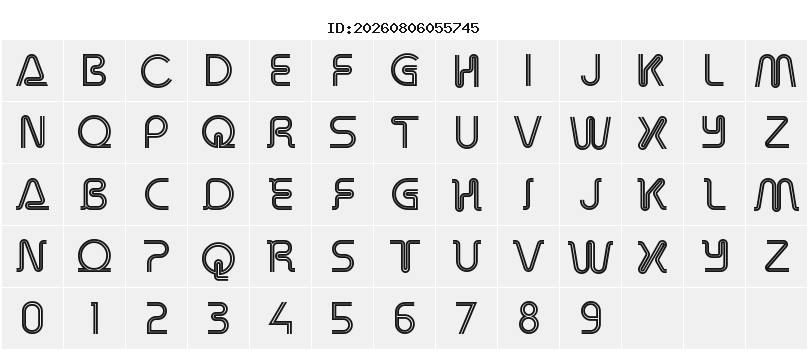
• Font Name: Overdrive Alternate
• Full Font Name: Overdrive Alternate
• Character Count: 243
• Designer: Baranski Letragraphics, Inc.
About Overdrive Alternate.ttf
Overdrive Alternate.ttf is a modern, elegant sans-serif font designed for ultimate readability and visual harmony. Perfect for branding, headlines, web design, and print materials.